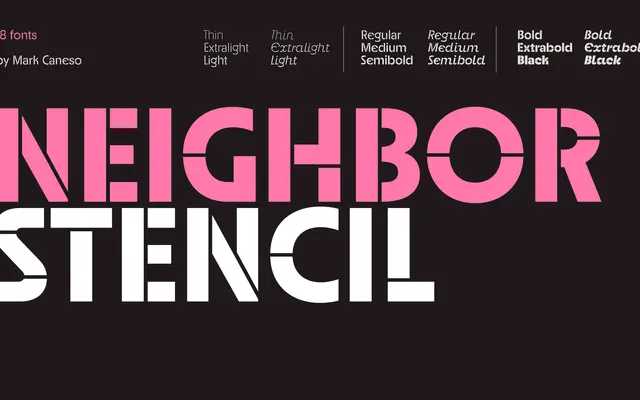
Neighbor Stencil
A stencil sans in nine weights with matching italics, offering extensive OpenType alternates including geometric, cursive and schoolbook lowercase variants.
Eighteen styles span Thin through Black with upright and italic cuts across every weight, giving designers a wide tonal range within a single stencil family. OpenType features include multiple lowercase sets, narrow and wide uppercase alternates, oldstyle figures, and discretionary ligatures, adding typographic flexibility beyond what stencil typefaces typically offer. Latin Extended coverage supports a broad range of European languages.
A stencil variant of a sans-serif family, with interrupted strokes at joints characteristic of the stencil genre. The upright and italic cuts across nine weights place it firmly in display usage.